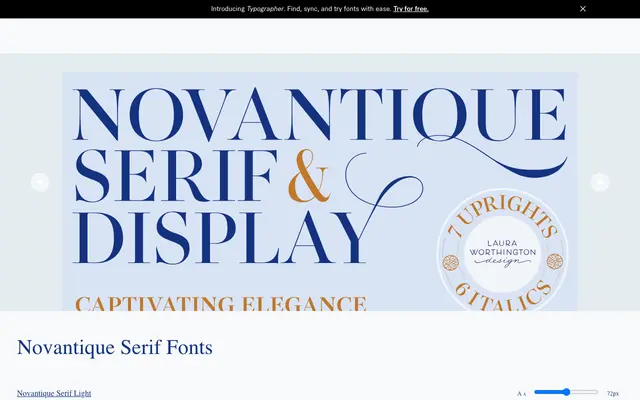
Novantique Serif
A 13-style serif family split into text and display optical sizes, designed for layered editorial work from body copy through to front covers.
Novantique Serif offers two optically distinct sub-families: a text-optimised family in Light, Regular and Bold with matching italics, and a Display family that adds a swash variant for decorative headline use. The family supports a broad range of Latin-based European languages and includes extensive OpenType features including small capitals, titling alternates and stylistic sets. It is part of the wider Novantique collection, which also includes Sans, Script and a second Serif family, all designed to work together across a layered editorial system.
A text and display serif family with clear distinction between text and display optical sizes, designed for layered editorial use across body copy, headlines and covers.